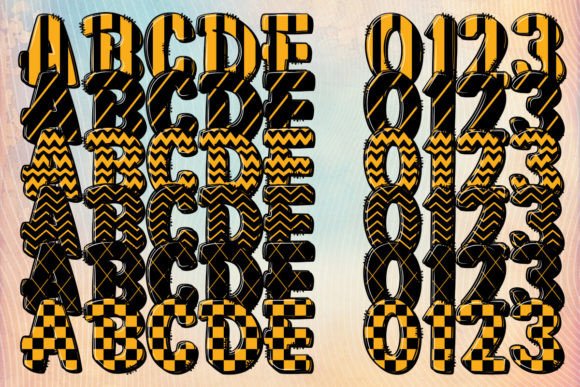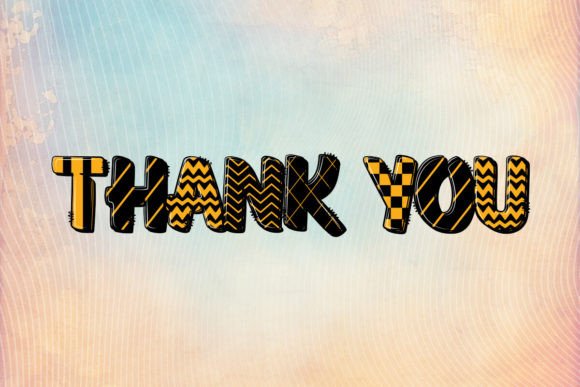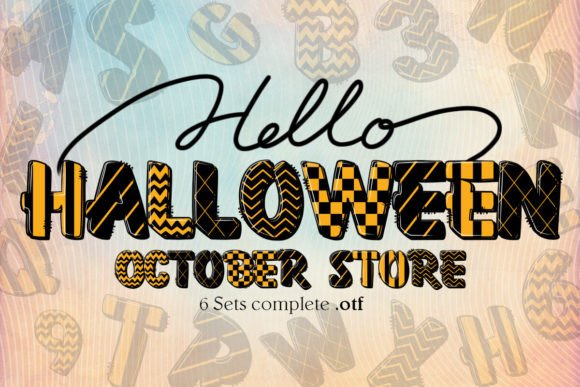
Introducing Halloween Font: A Vibrant and Playful Color Font Theme
Are you ready to add a touch of whimsy and charm to your Halloween-themed designs? Look no further than Halloween Font, a vibrant and playful color font theme that’s perfect for DIY craft projects, customizing names, creating sublimations, and designing eye-catching posters. This groovy retro-style font seamlessly blends the playful essence of the 60s with a fun, cute, and sweet retro color palette, making it an ideal choice for designers and crafters alike.
What Makes Halloween Font So Special?
Halloween Font is more than just a font – it’s a design experience. The black version of this font is compatible with Cricut Design Space and other cutting machines, making it perfect for crafters who love working with vinyl, paper, and other materials. The color version, on the other hand, is compatible with certain design programs, including PhotoShop, Illustrator, Silhouette, and Inkscape. This means you can use Halloween Font to create stunning designs that pop with color and personality.
Key Features of Halloween Font
- Groovy Retro Style: Halloween Font boasts a playful, retro vibe that’s reminiscent of the 1960s. Its unique style is sure to add a fun and quirky touch to your designs.
- Retro Color Palette: The font features a sweet and cute retro color palette that’s perfect for Halloween-themed designs. The colors are vibrant, playful, and sure to grab attention.
Design Ideas with Halloween Font
Halloween Font is a versatile design tool that can be used for a wide range of projects. Here are a few ideas to get you started:
- Custom DIY Craft Projects: Use Halloween Font to add a personal touch to your DIY craft projects, such as customized signs, decorations, and gifts.
- Personalized Names: Create custom name tags, labels, and cards with Halloween Font’s playful and colorful style.
- Sublimations: Use Halloween Font to design stunning sublimations that pop with color and personality.
- Eye-Catching Posters: Create bold and eye-catching posters with Halloween Font’s unique style and retro color palette.